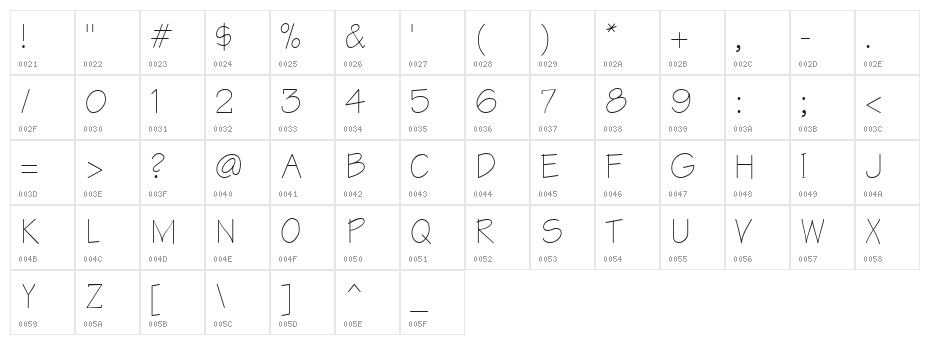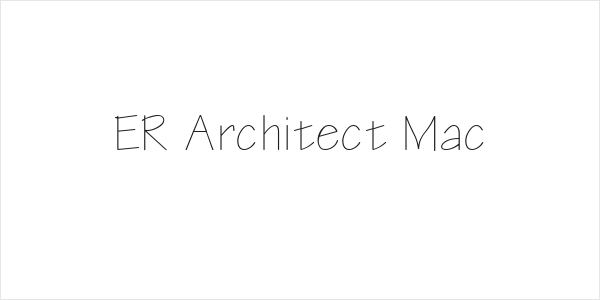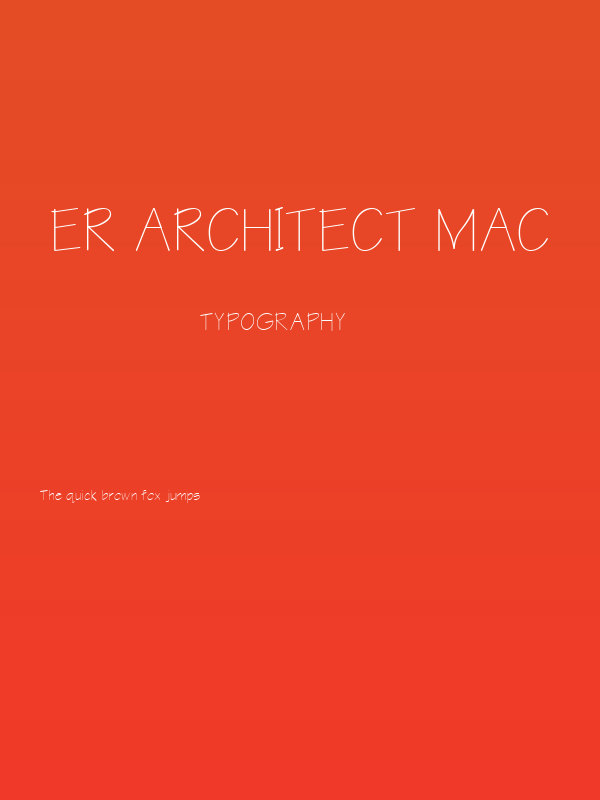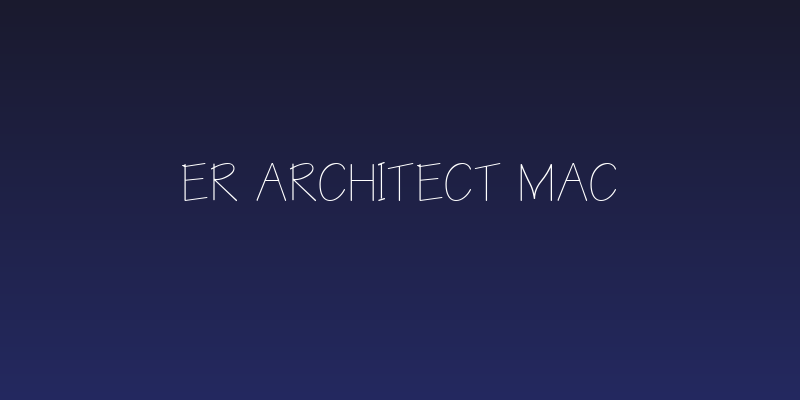
ER Architect Mac Font
ER Architect Mac Description
This font features a clean and modern design with a handwritten feel. The characters are tall and slender, with a consistent stroke width that gives it a uniform appearance. The uppercase letters are slightly angular, adding a touch of sophistication, while the lowercase letters maintain a smooth and flowing style. The numerals are clear and easy to read, making them suitable for various applications. Special characters are included, maintaining the same elegant style. This font is versatile, suitable for both formal and casual settings.
| Use Case | Logos, Headlines, Personal stationery |
| Proposed Projects | Ideal for architectural designs, modern branding, personal stationery, and creative projects requiring a handwritten touch. |